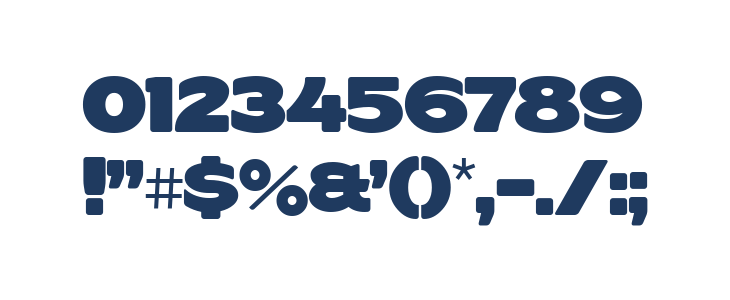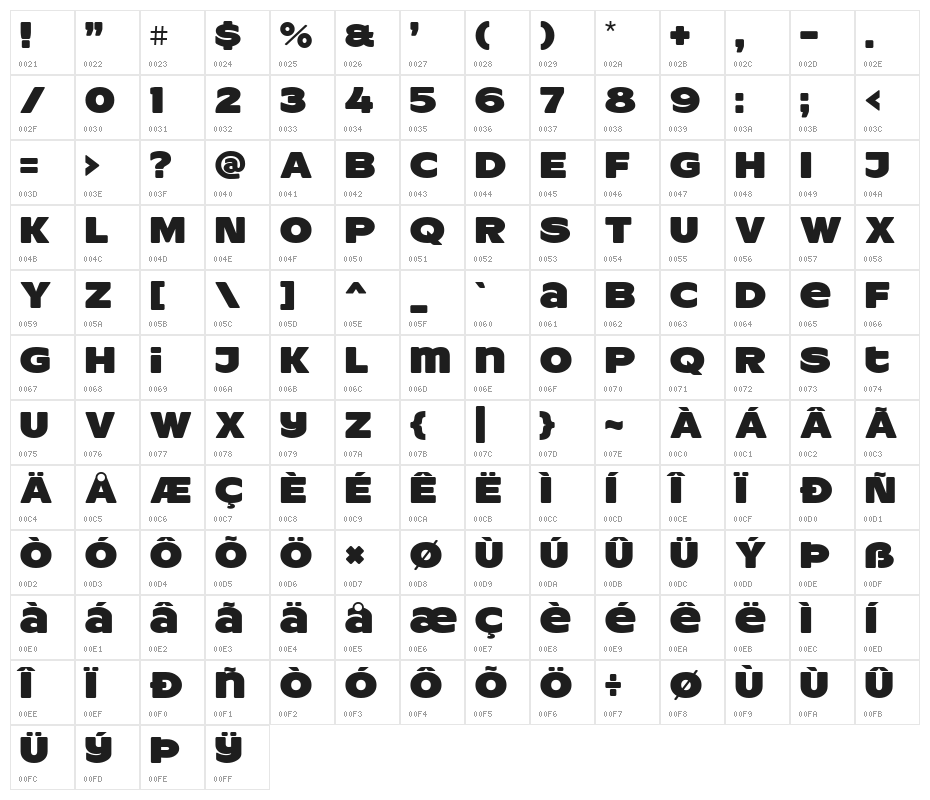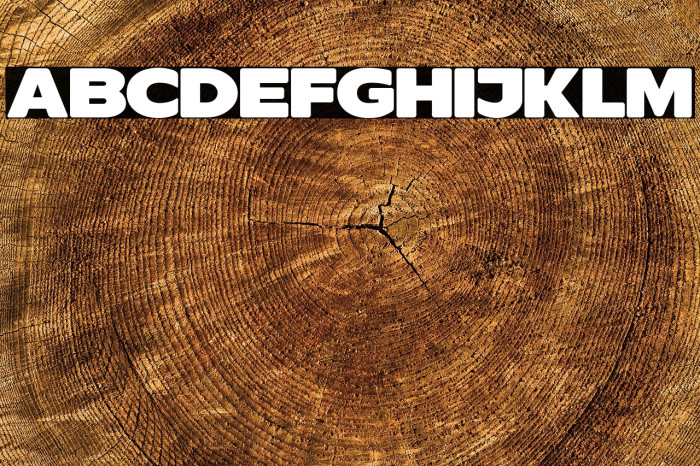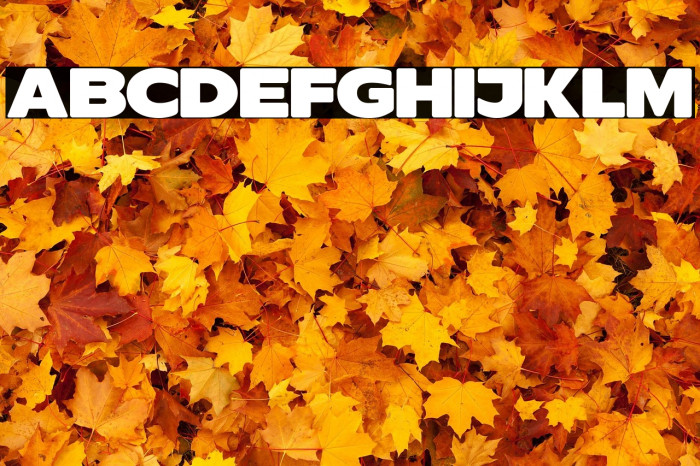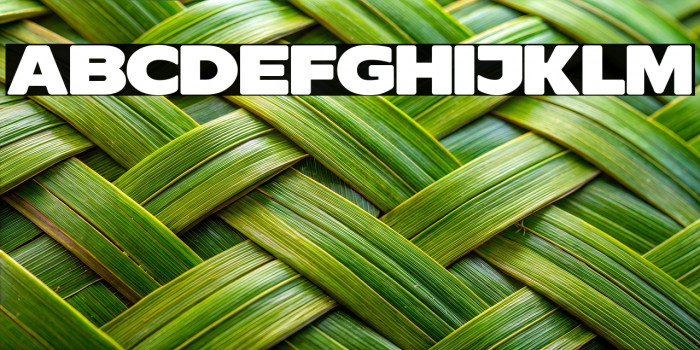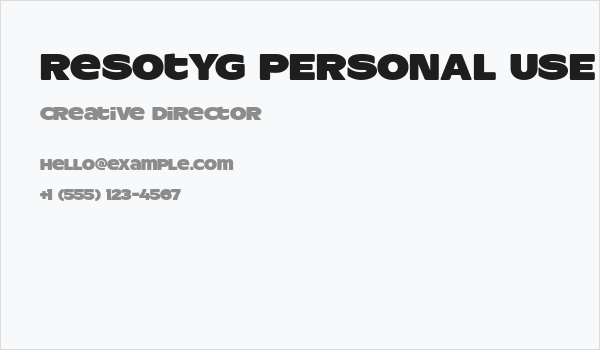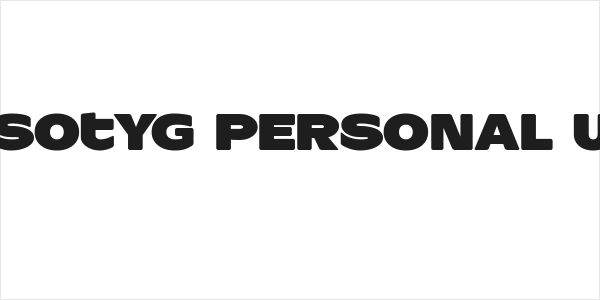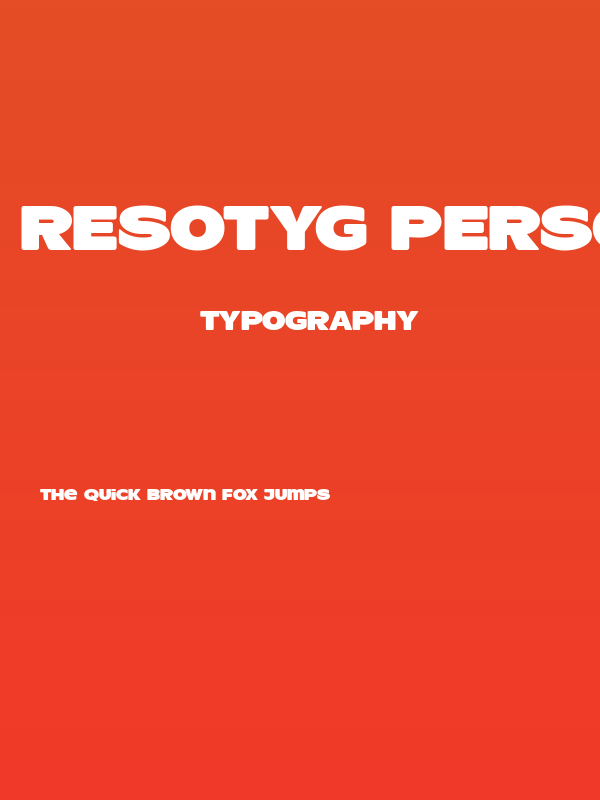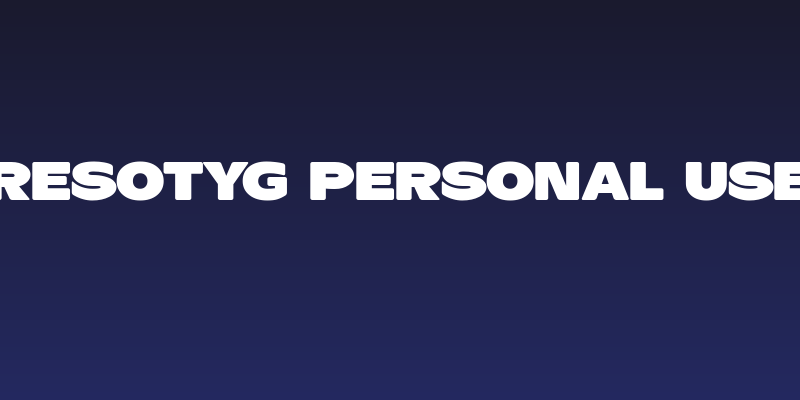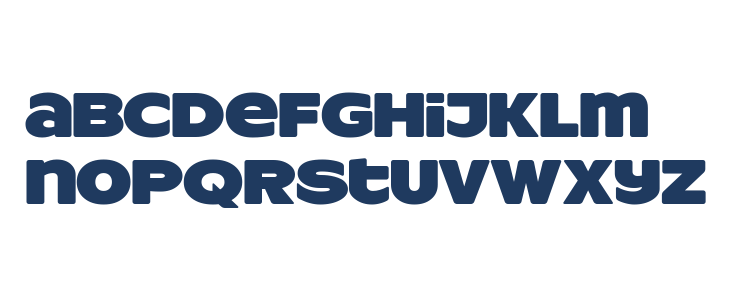
ResotYg PERSONAL USE Font
ResotYg PERSONAL USE Description
This font features bold, rounded characters with a strong presence, making it ideal for attention-grabbing designs. The uppercase and lowercase letters maintain a consistent weight, contributing to a cohesive look. The numerals and special characters are equally bold, ensuring uniformity across all text elements. The rounded edges and thick strokes give it a friendly yet assertive appearance, suitable for modern and dynamic projects. The font's design is both playful and robust, making it versatile for various creative applications.
| Proposed Projects | Ideal for logos, headlines, posters, and branding materials that require a bold and modern look. |